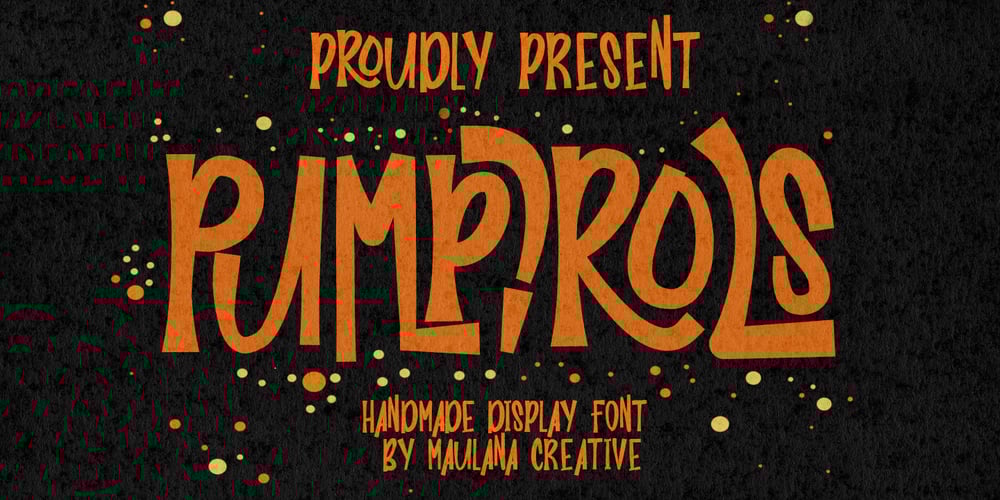
MC Pumpirols Font Family was designed by Gilang Maulana and published by Maulana Creative. MC Pumpirols contains 1 styles and family package options. Pumpirols is a handmade display font. With medium low contrast stroke, vintage character with a ligature and alternate. To give you an extra creative work. Pumpirols font support multilingual language. This font is good for logo design, Social media, Movie Titles, Books Titles, a short text even a long text letter and good for your secondary text font with sans or serif. Make a stunning work with Pumpirols font.Cheers,Maulana Creative